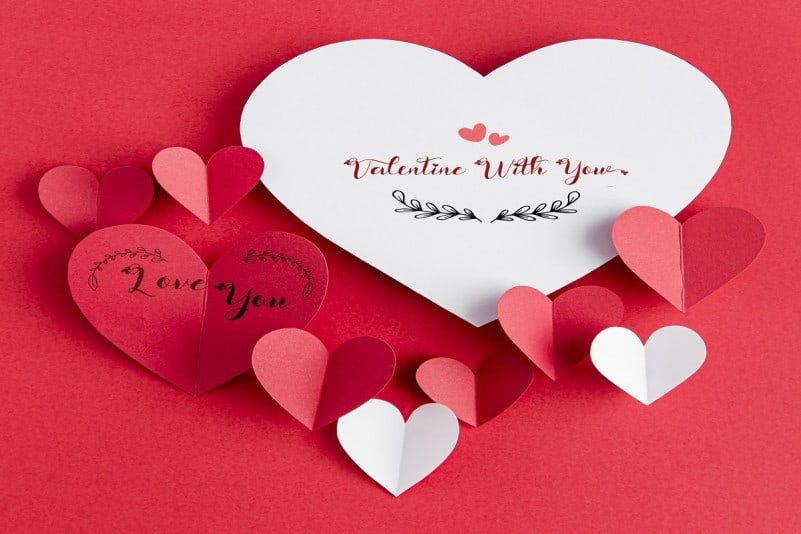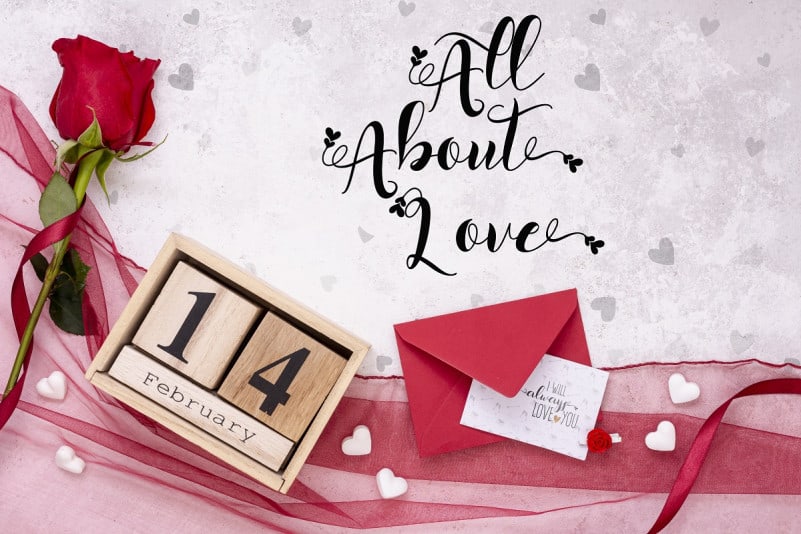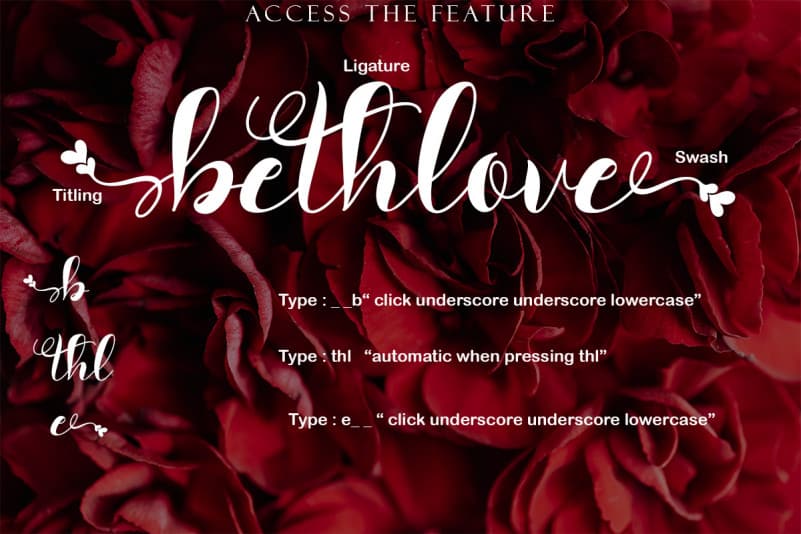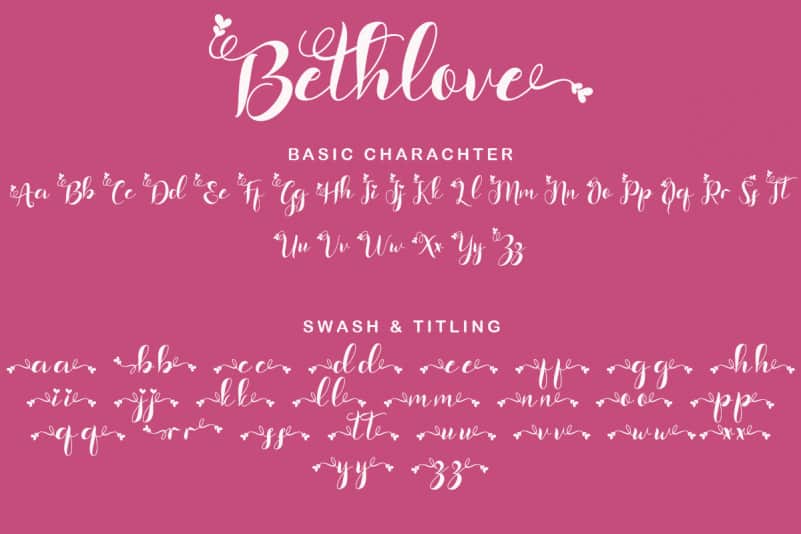
Bethlove Calligraphy Font
Bethlove Calligraphy Font is modern calligraphy with unique letters. This font is complemented by a heart-shaped swash, so it looks really pretty and romantic. It is suitable for Valentine’s Day celebrations, weddings, quotes, telling feelings, Valentine promotions, social media updates and more.